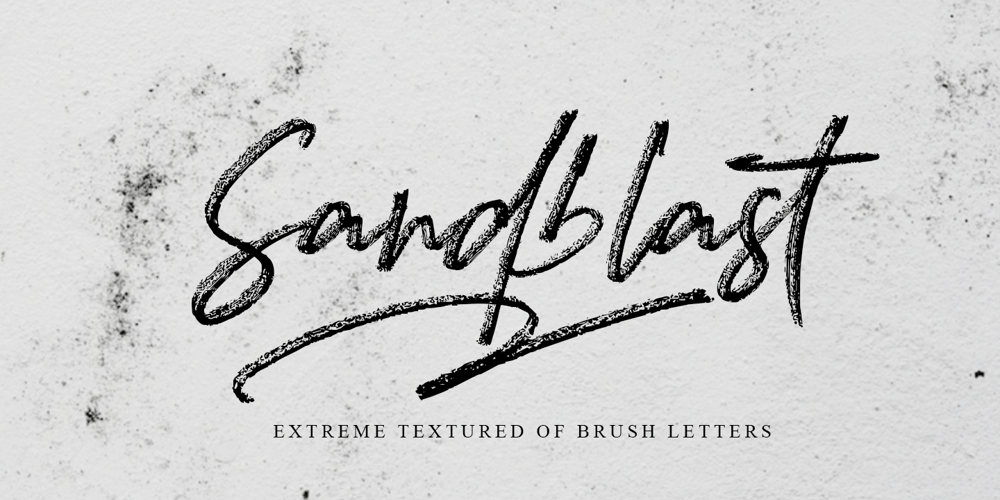
Sandblast Font Family was designed by Sarwo Edhi Prayitno and published by Haksen. Sandblast contains 2 styles and family package options. I just launched brush script font in the new collectionSandblast is a extreme textured for brush script, I design it with real write my hand, I really hope you will enjoy it so much when using this font.I love using this one with layer masks in Photoshop, really look natural written.Please contact me if anything question,I’m glad to help :)Happy Designing,Haksen Studio